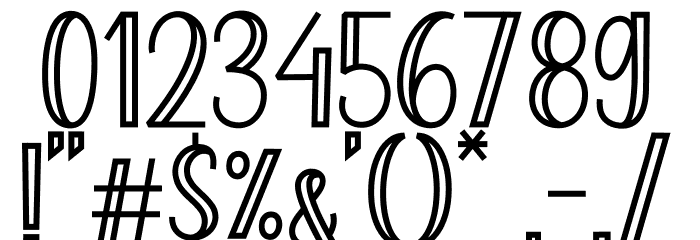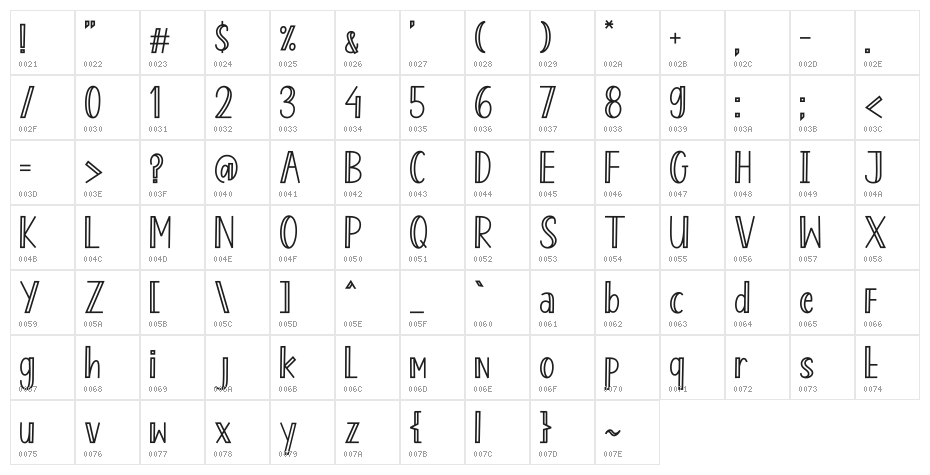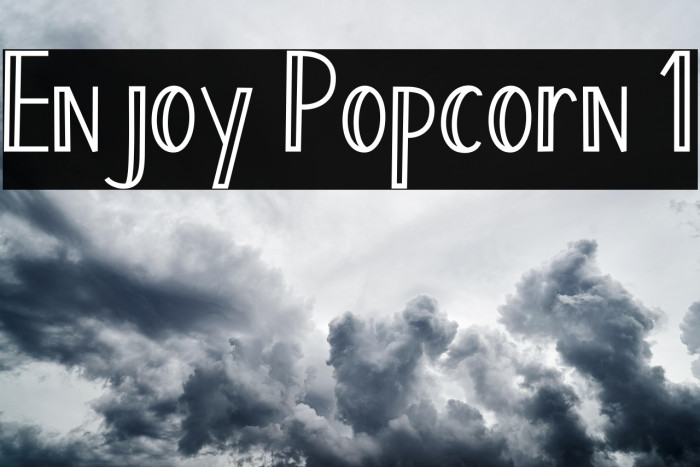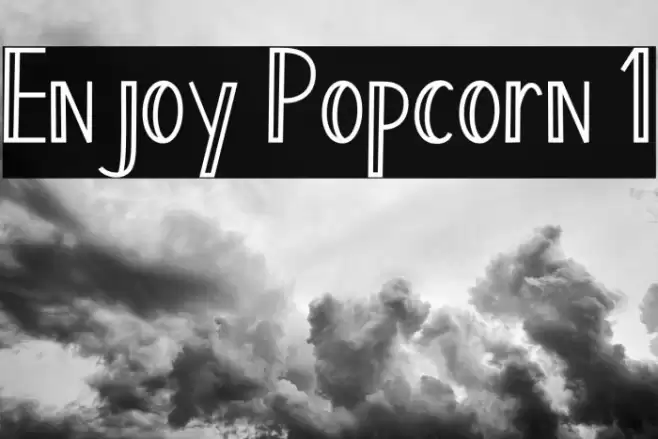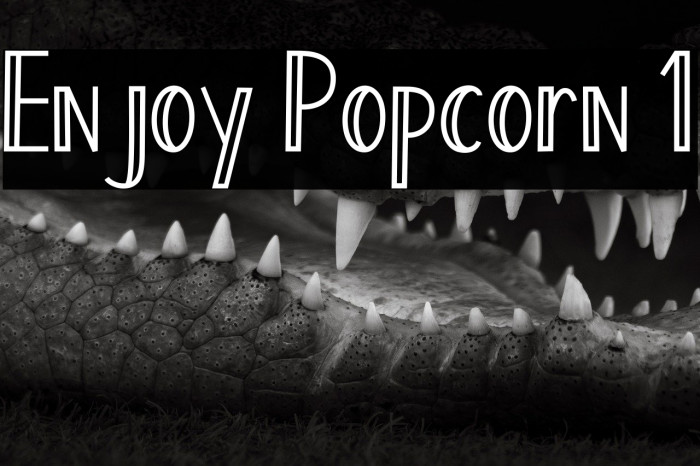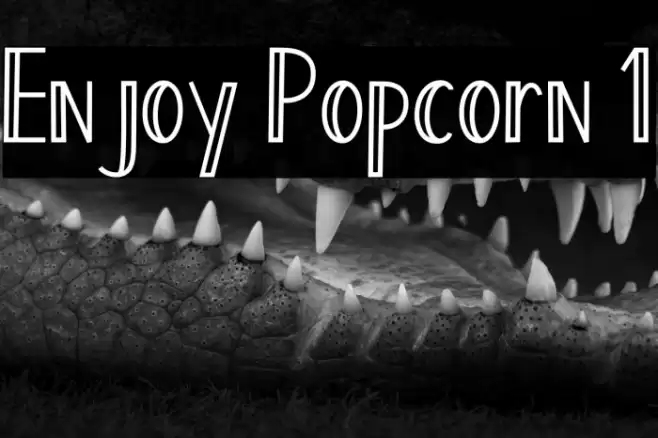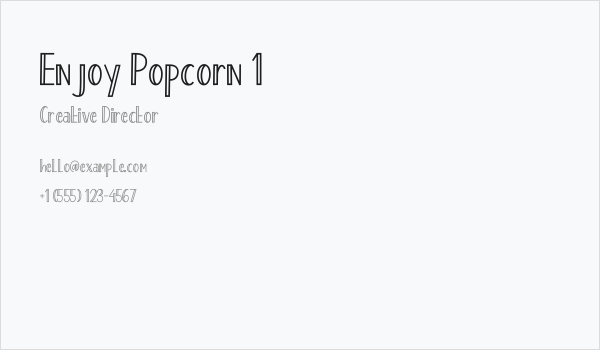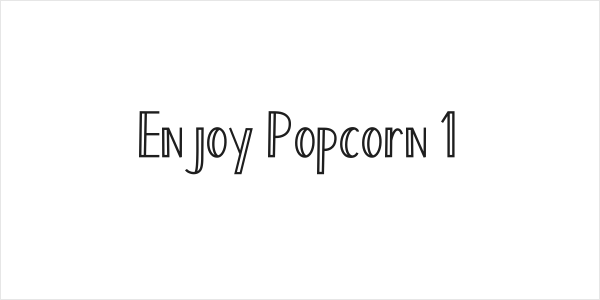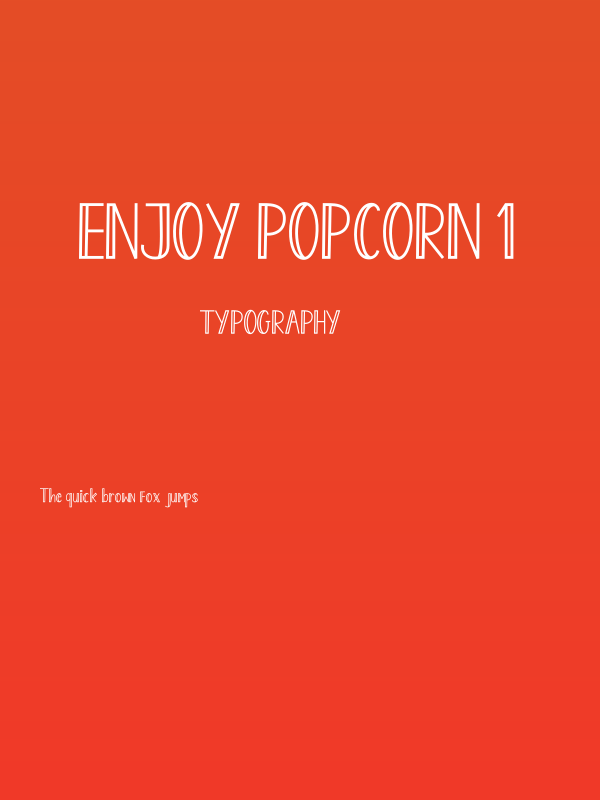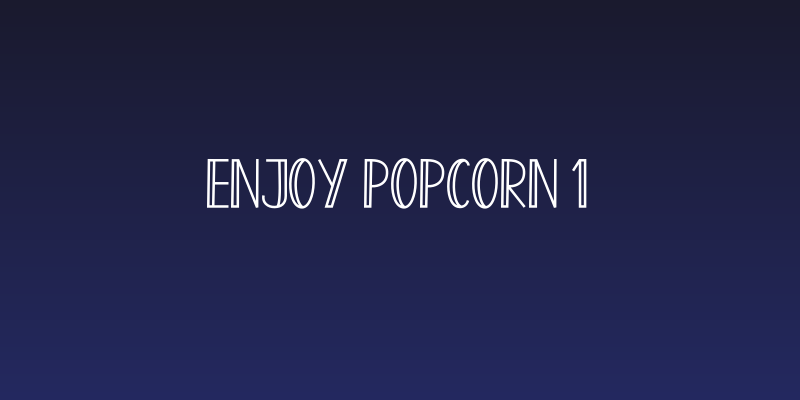
Enjoy Popcorn 1 Font
Enjoy Popcorn 1 Description
This font features a playful and whimsical design with tall, narrow characters that have a hand-drawn, artistic feel. The uppercase letters are bold and slightly condensed, with a unique, quirky style that adds character to each letterform. The lowercase letters maintain the same playful aesthetic, with some characters featuring distinctive loops and curves. Numbers are consistent with the overall style, offering a fun and engaging look. The special characters complement the set, enhancing its versatility. This font is perfect for projects that require a touch of creativity and fun, making it ideal for children's books, playful branding, or eye-catching headlines.
| Use Case | Headlines, Logos, Creative Designs |
| Proposed Projects | Ideal for children's books, playful branding, eye-catching headlines, and creative designs. |